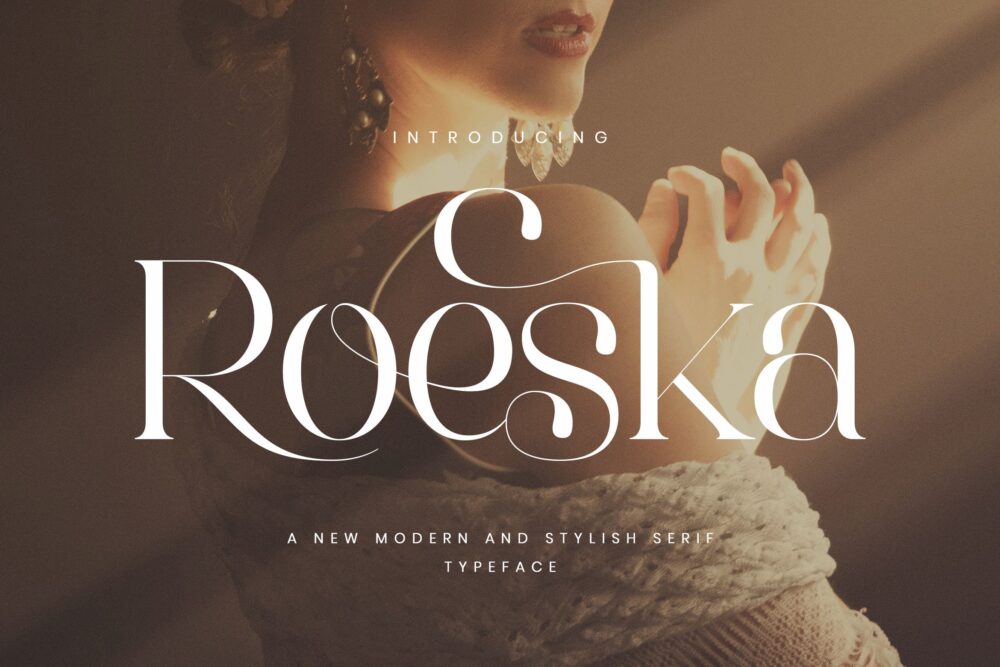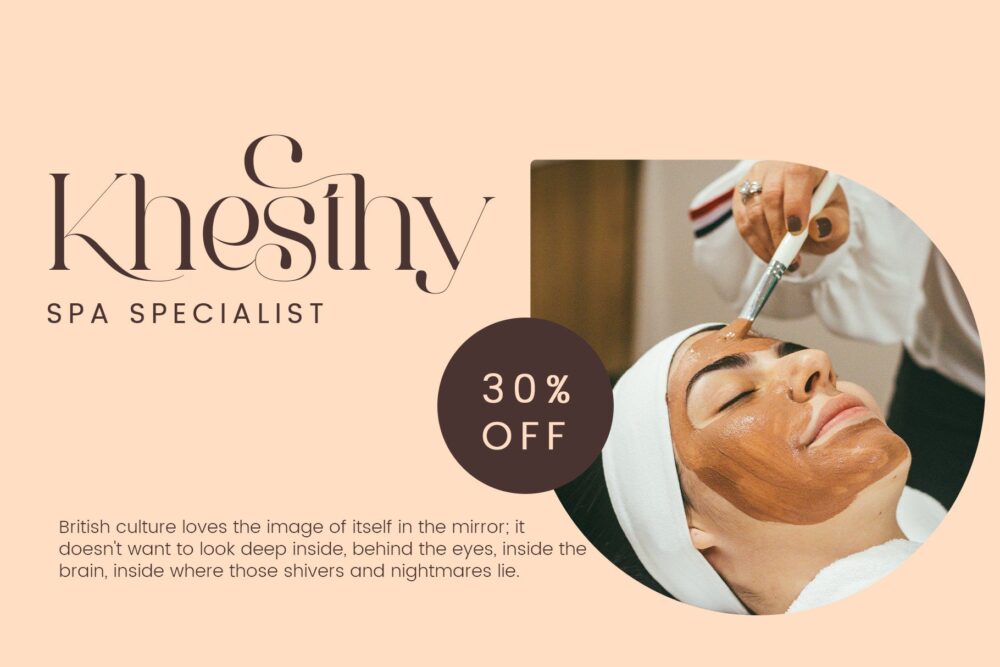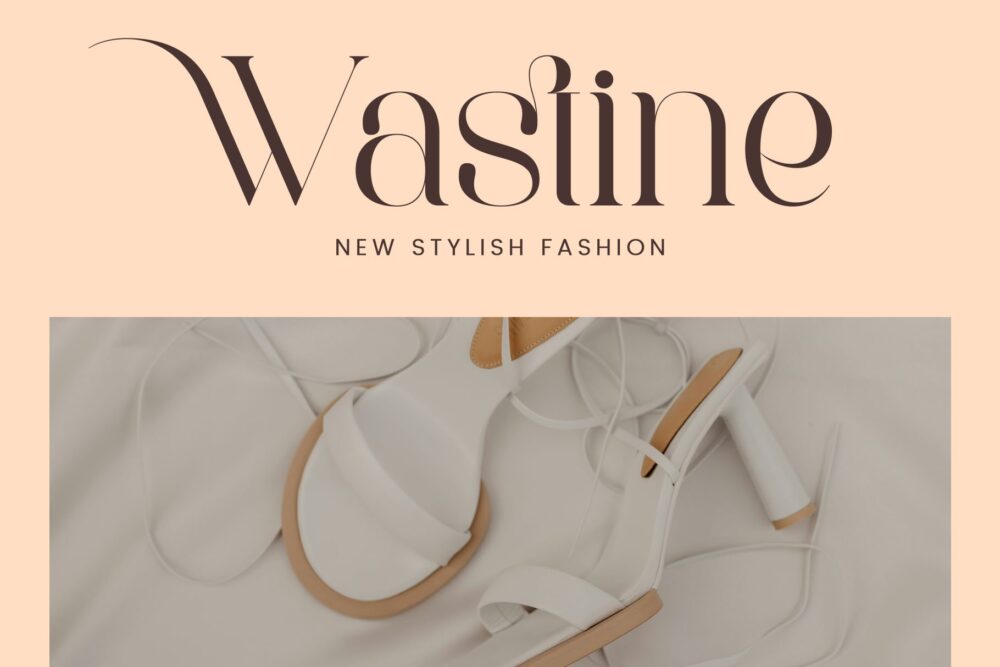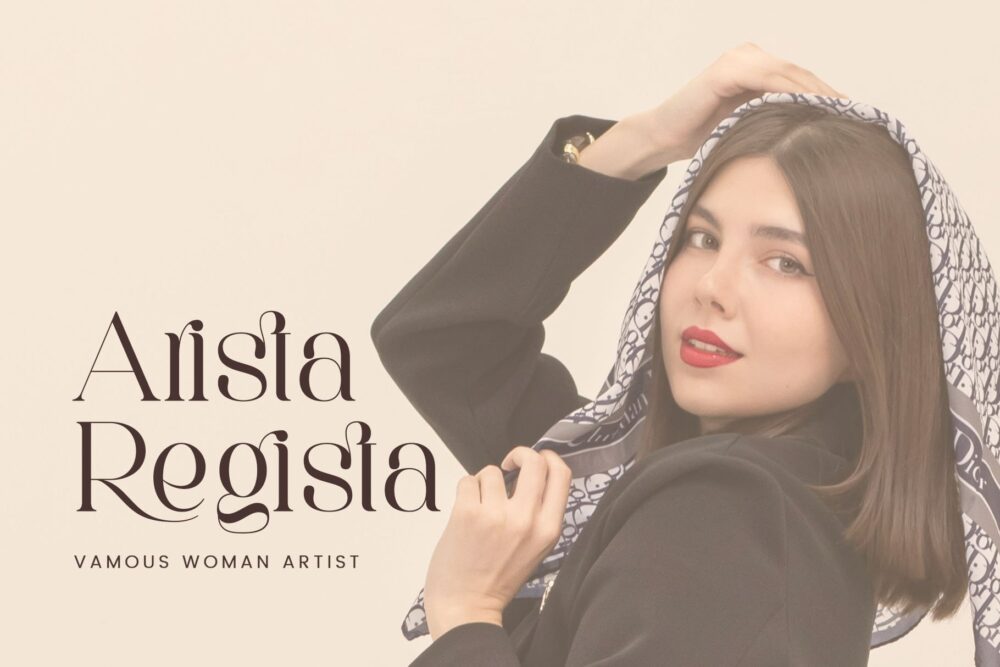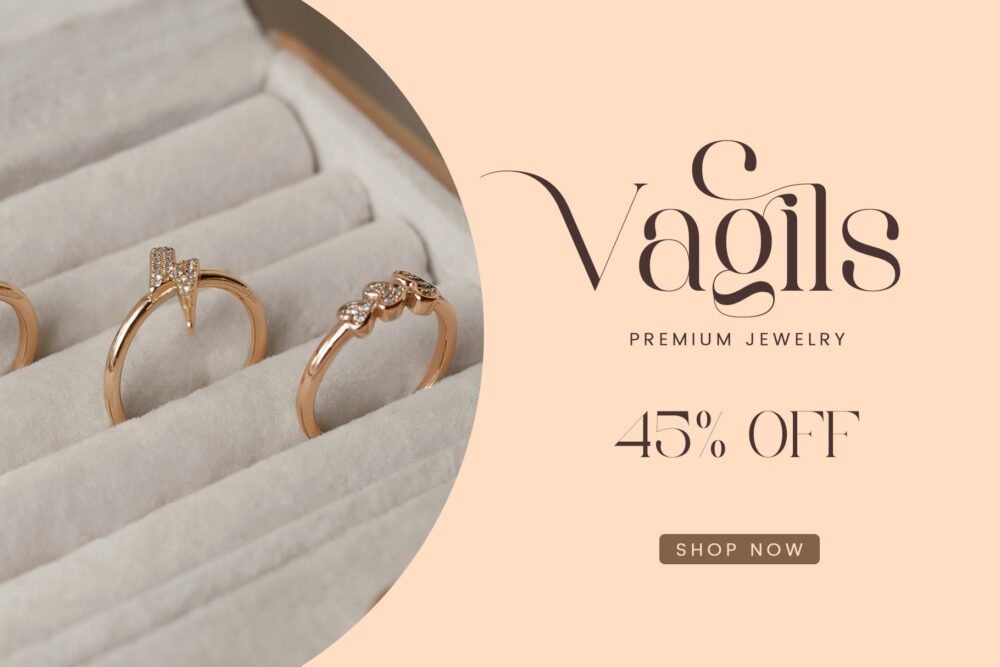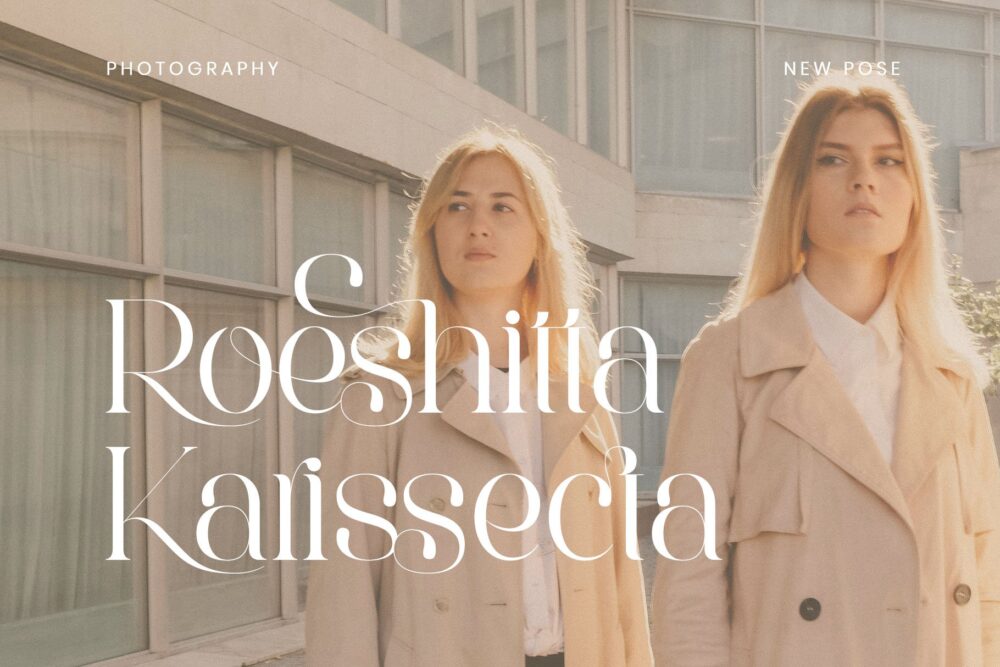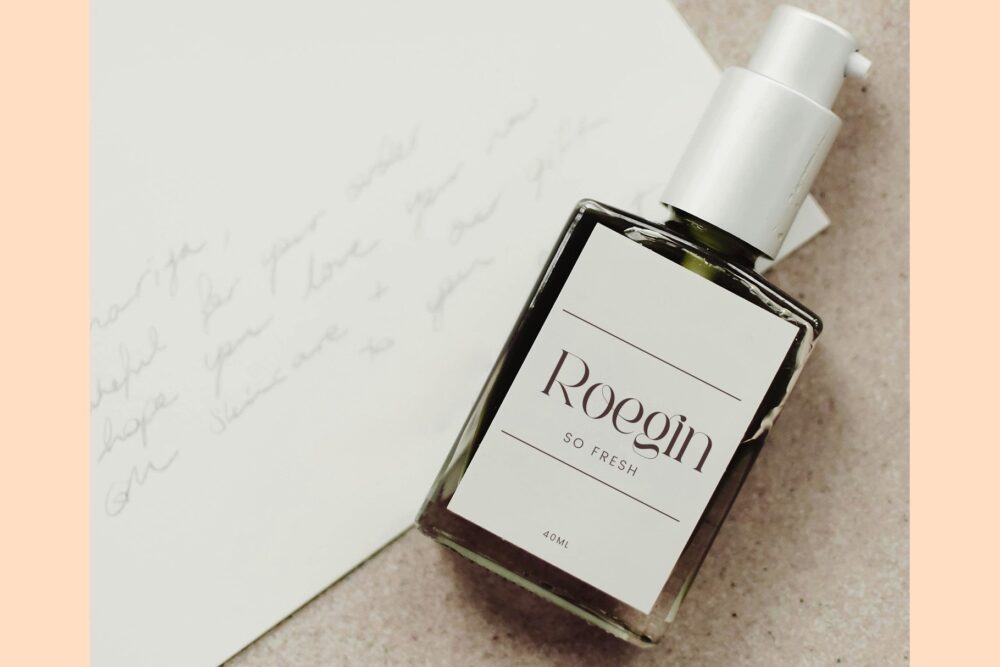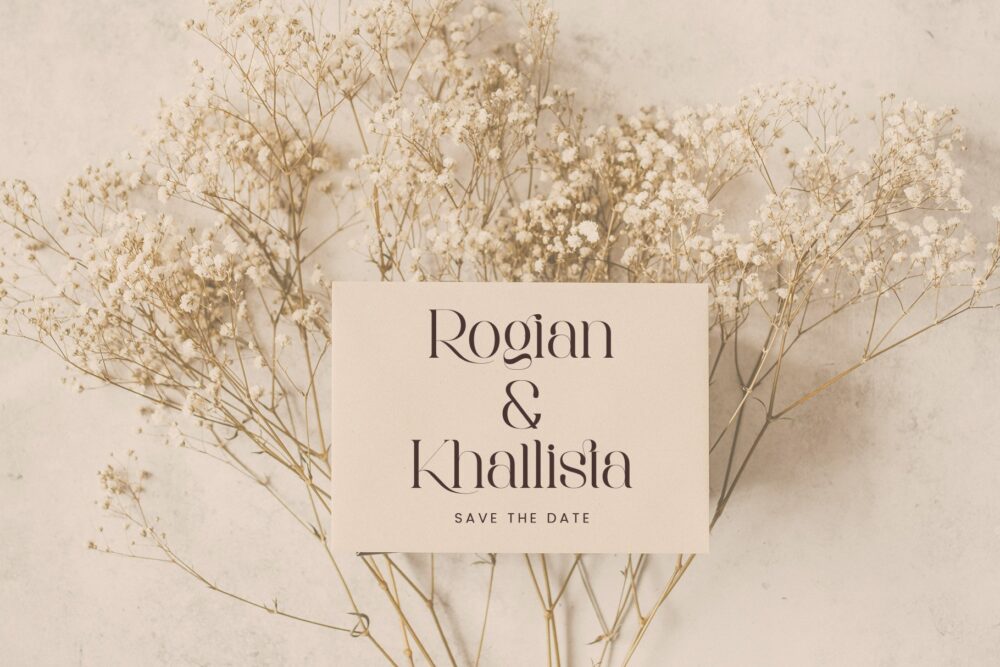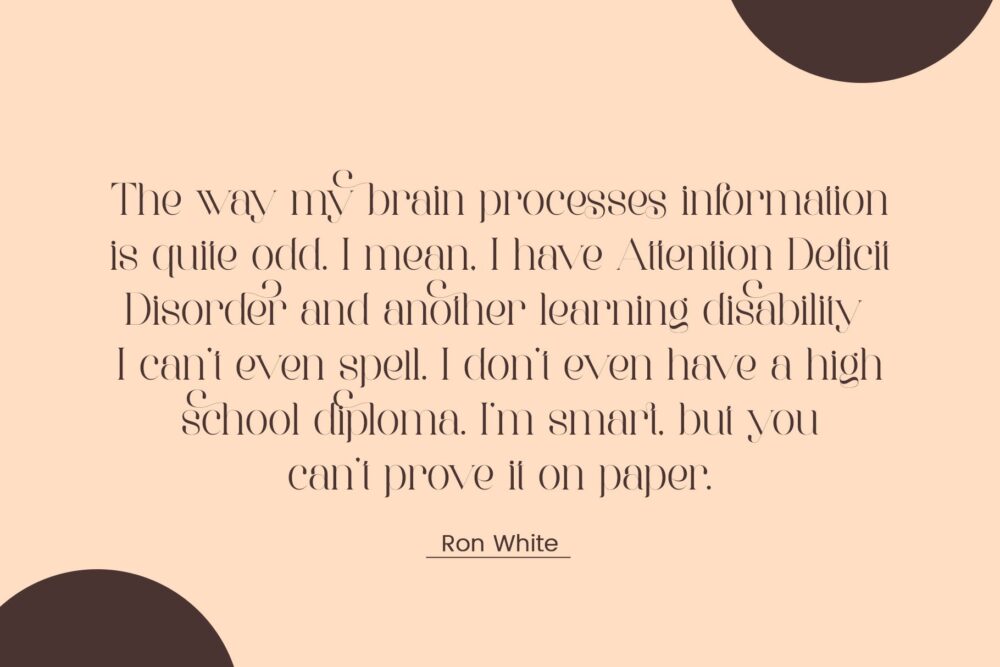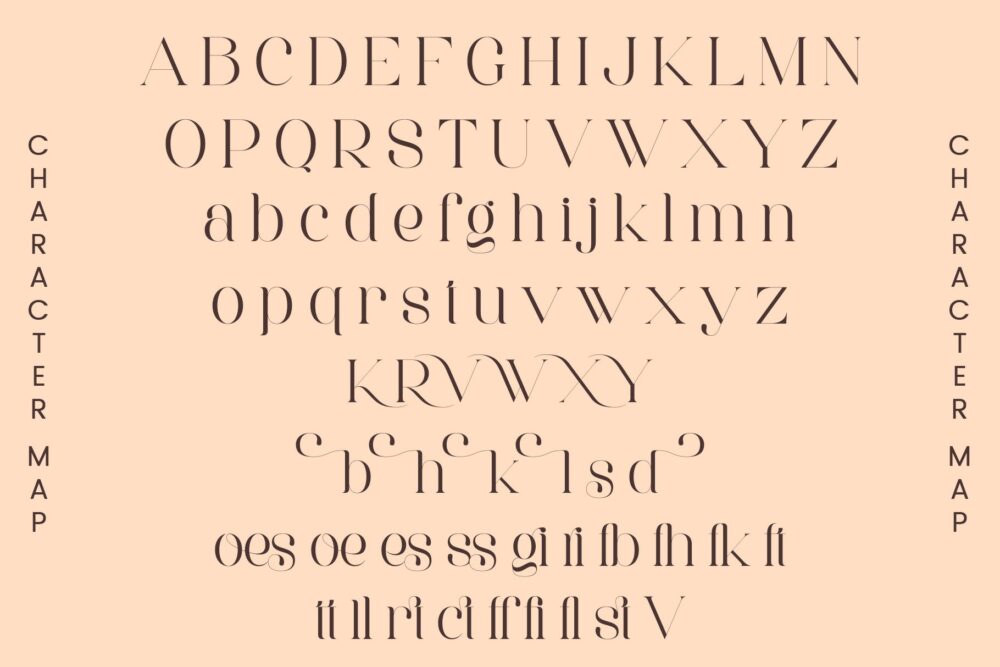
Roeska
Roeska Stylish Ligature Typeface, inspired by the famous minimalist logo perfect for the purposes of designing templates, brochures, videos, advertising branding, logos and more.